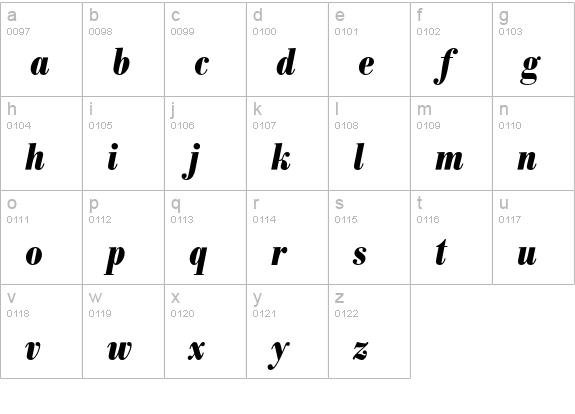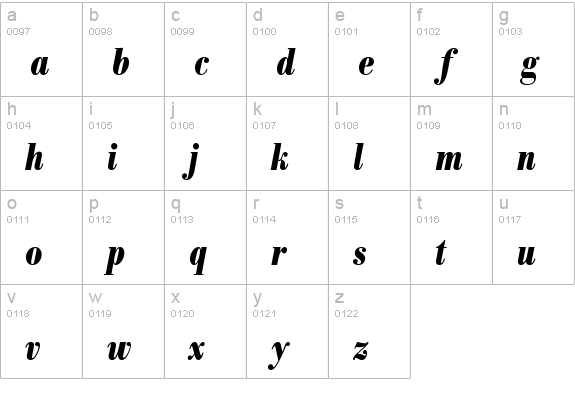
BodoniEF-BoldCondIta is a modern and elegant font that exudes sophistication and style. With its bold and condensed italic design, this typeface is perfect for creating eye-catching headings, titles, and logos. The sleek lines and sharp serifs of BodoniEF-BoldCondIta give a timeless and classic appeal to any design project. What makes BodoniEF-BoldCondIta even more appealing is that it is available for free download at FontsMarket.com. This means that you can easily access this high-quality font for your personal and commercial projects without any cost. Whether you are designing a website, creating print materials, or working on branding elements, BodoniEF-BoldCondIta is a versatile font that will elevate your designs to the next level.